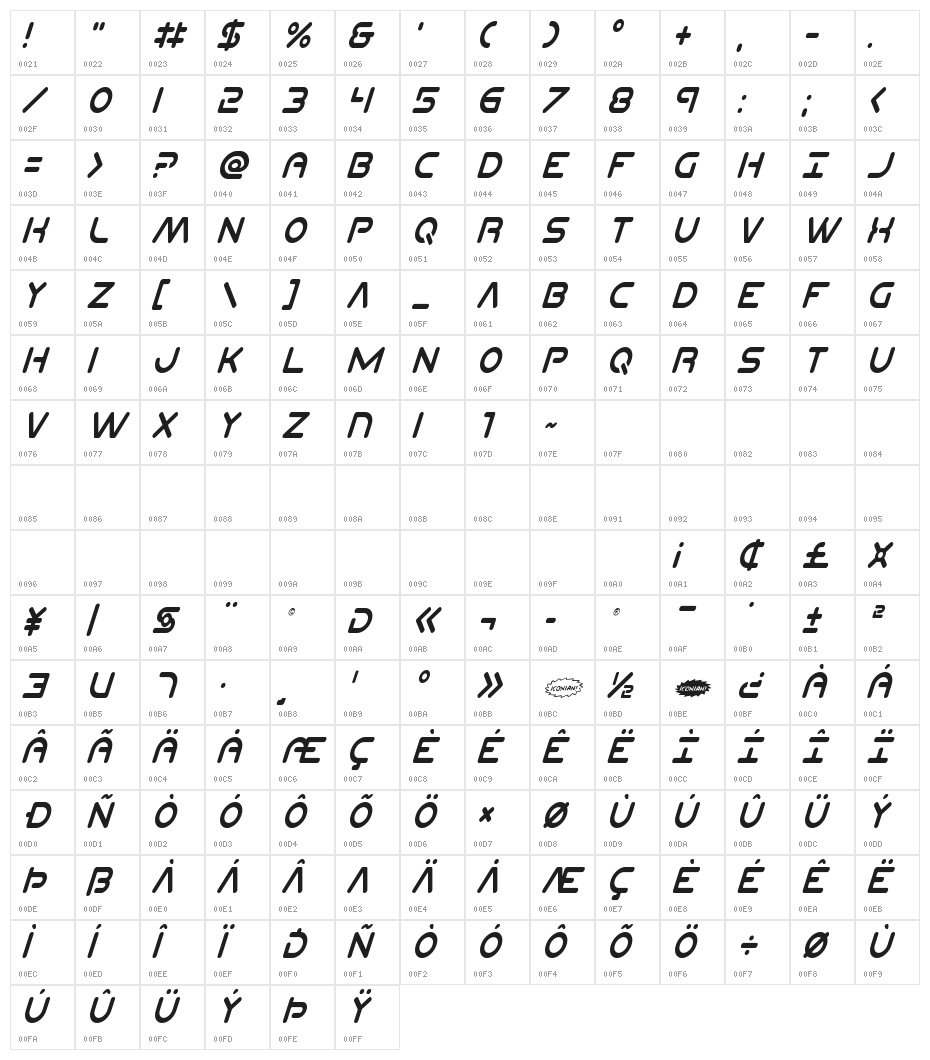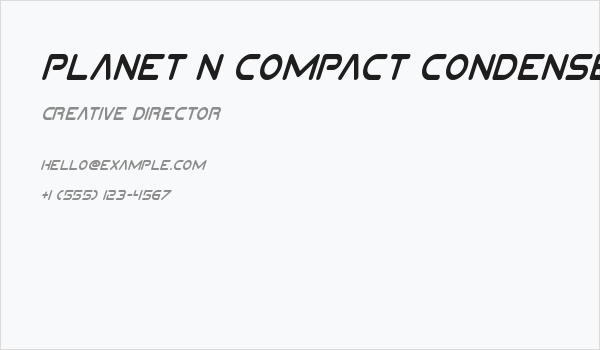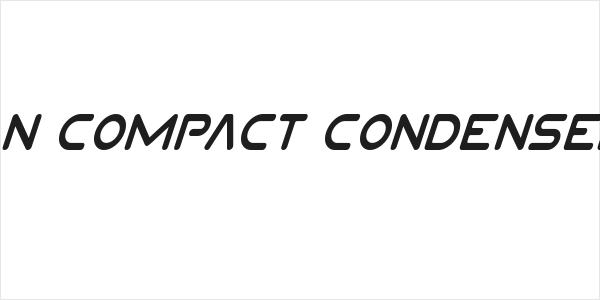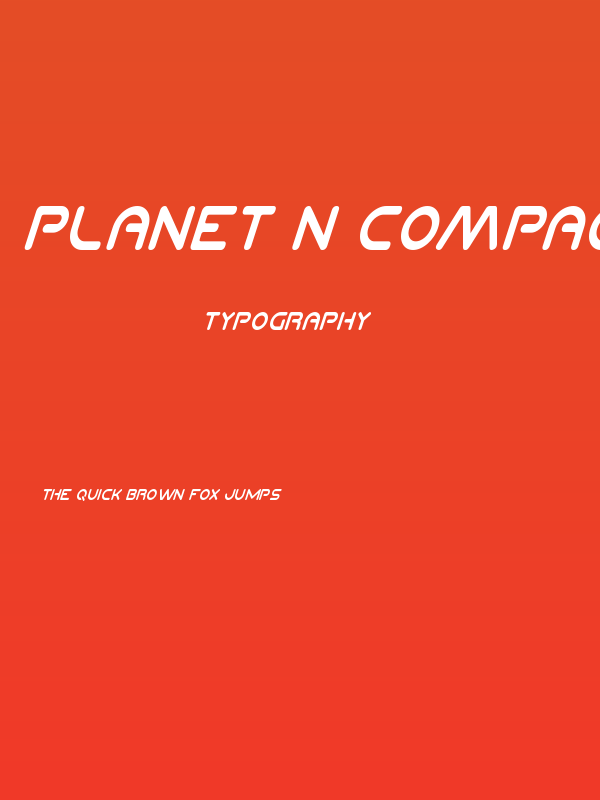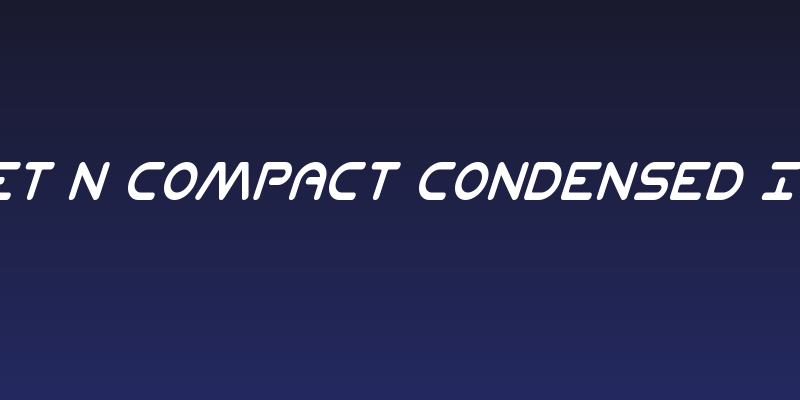
Planet N Compact Condensed Italic Font
Planet N Compact Condensed Italic Description
This font features a sleek, modern design with a condensed and italicized style. The characters are slightly slanted, giving a sense of motion and dynamism. The strokes are uniform in thickness, contributing to a clean and streamlined appearance. The rounded edges of the characters add a touch of softness, while the overall geometric structure maintains a contemporary feel. The font is highly legible, making it suitable for various design applications. Its compact nature allows for efficient use of space, making it ideal for headlines and titles where space is limited. The consistent character spacing ensures readability, even at smaller sizes.
| Proposed Projects | Ideal for use in technology branding, modern advertising, sports team logos, and futuristic design projects. |